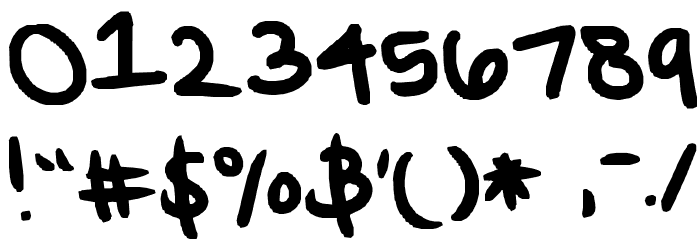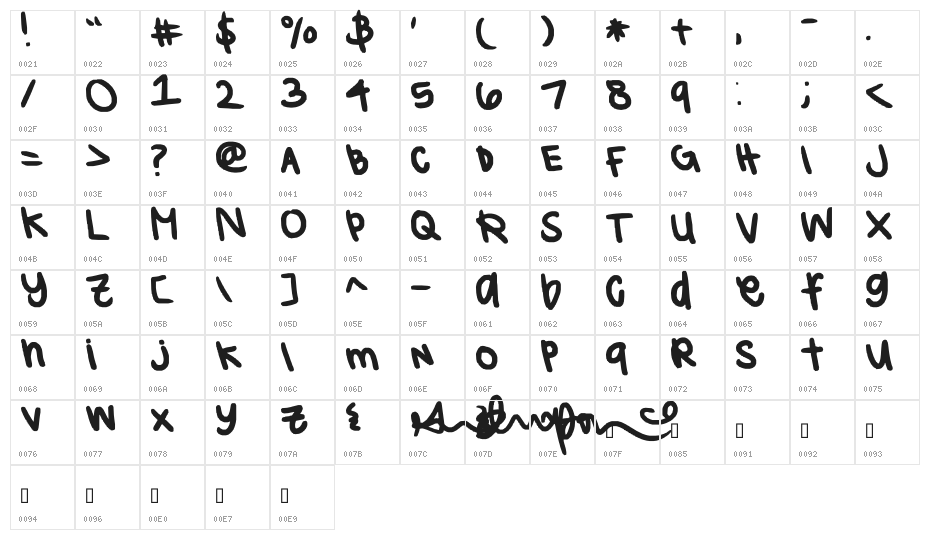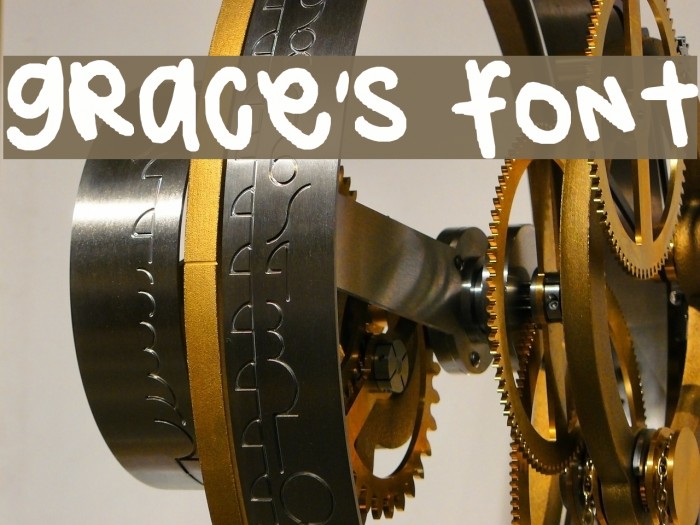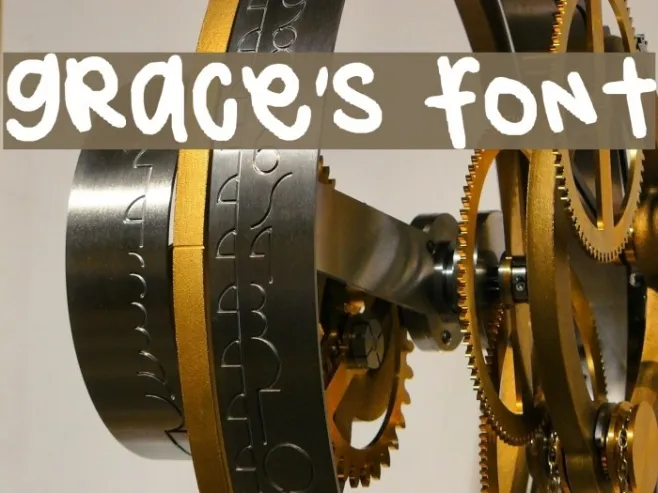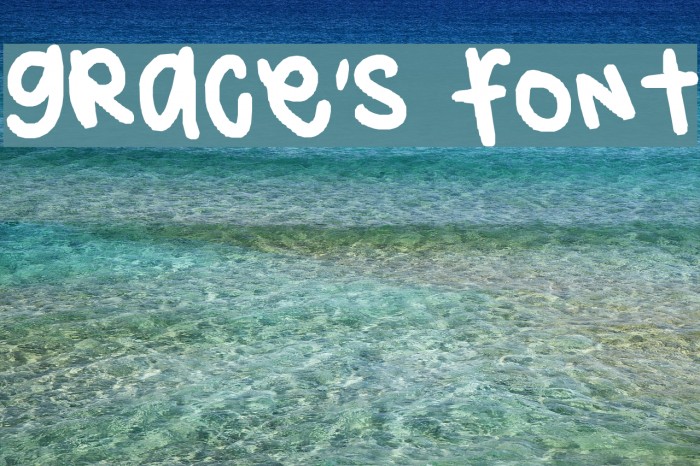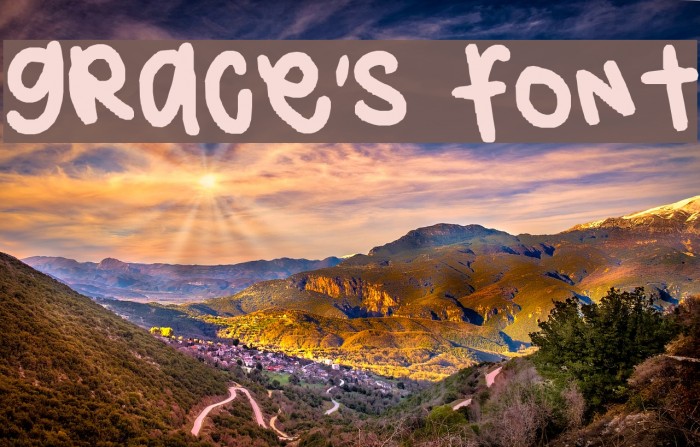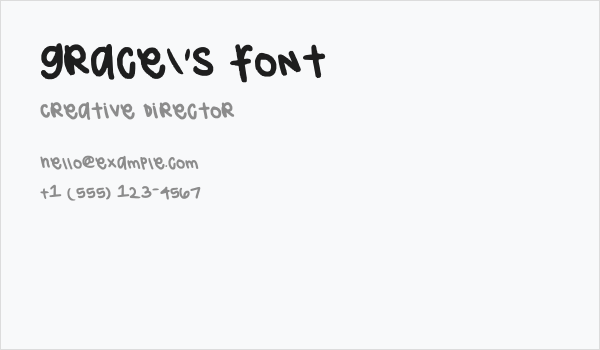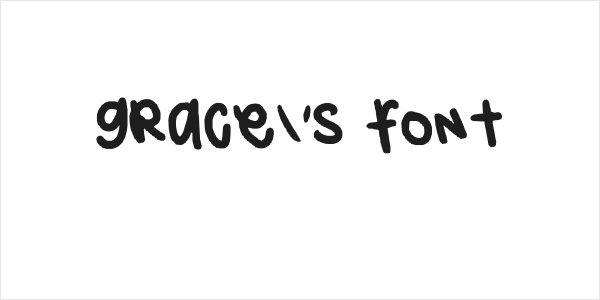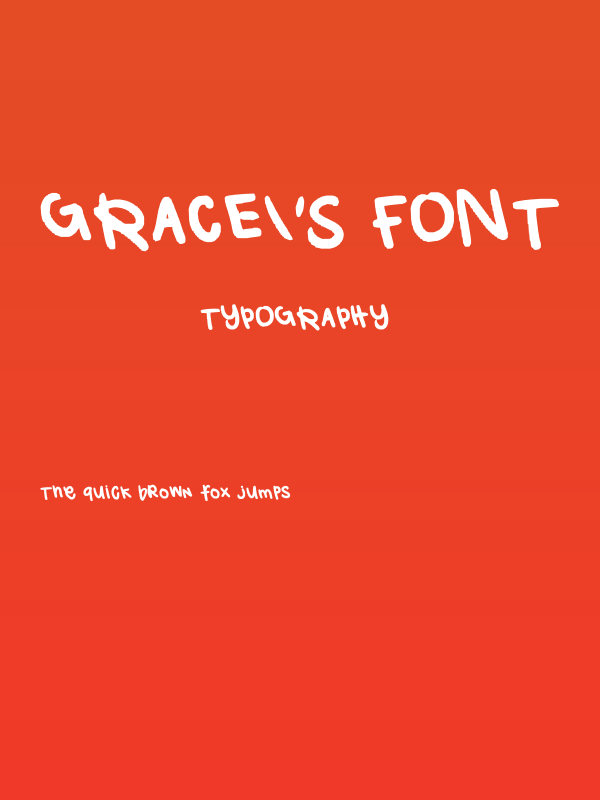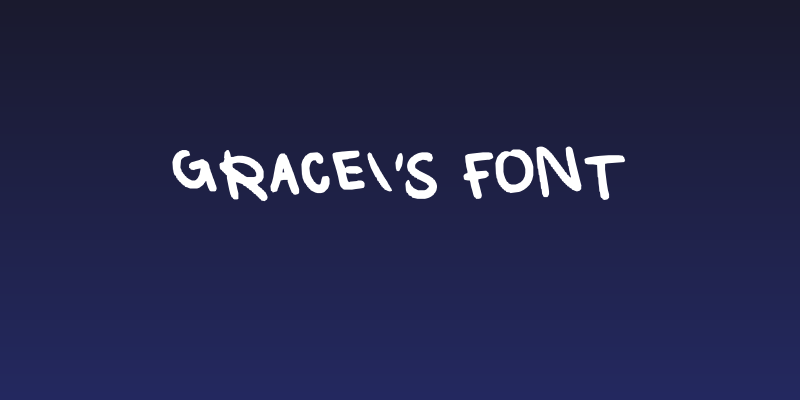
grace's font Font
grace's font Description
This font features a playful and casual handwritten style, characterized by its bold and rounded letterforms. The strokes are thick and consistent, giving it a friendly and approachable appearance. The letters are slightly irregular, adding to the hand-drawn aesthetic. It maintains a uniform weight throughout, with a slight slant that suggests a natural flow. The numbers and special characters follow the same style, ensuring consistency across all elements. This font is ideal for projects that require a personal touch, such as invitations, greeting cards, or informal branding.
| Use Case | Headlines, Informal text, Branding |
| Proposed Projects | Ideal for invitations, greeting cards, children's books, and informal branding. |